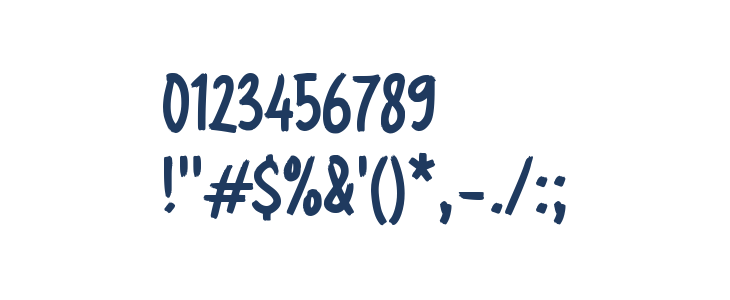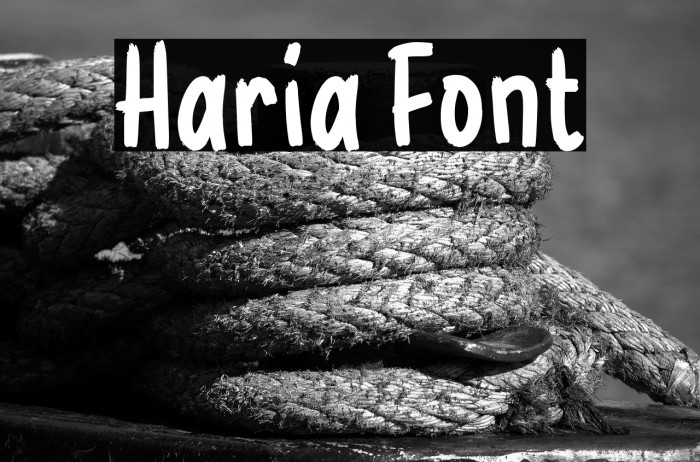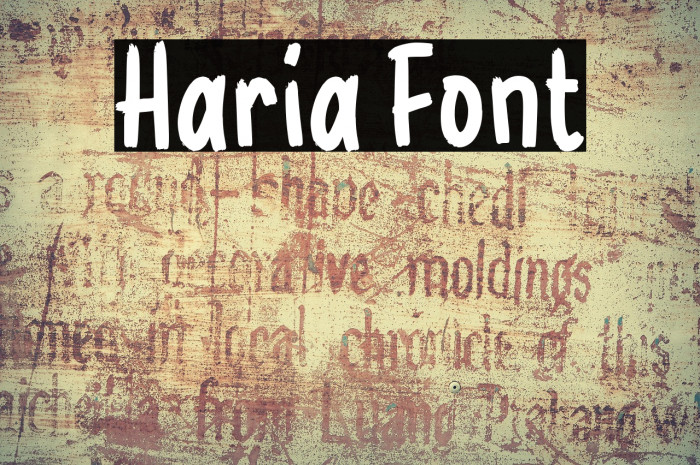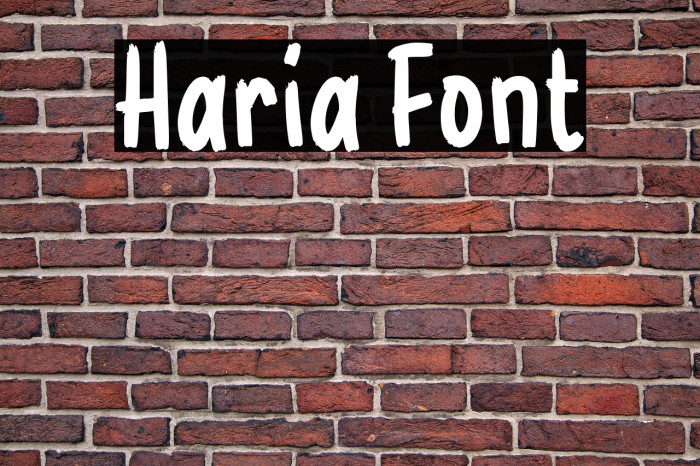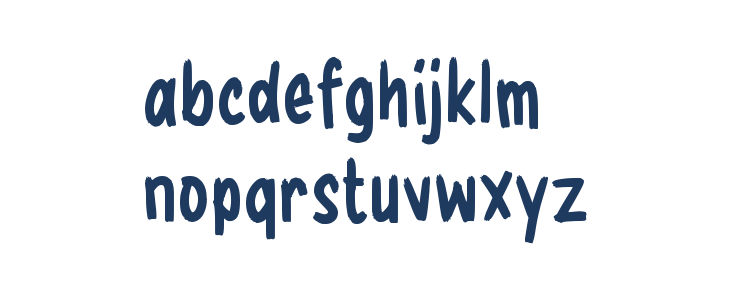
Haria Font
Haria Description
This font exudes a playful and energetic vibe, characterized by its bold and slightly irregular strokes that mimic a hand-drawn style. The uppercase and lowercase letters maintain a consistent height, contributing to a cohesive appearance. The numerals and special characters follow the same lively aesthetic, making them stand out with their unique flair. The overall design is informal yet structured, offering a sense of spontaneity while remaining legible. Its dynamic nature makes it suitable for projects that require a touch of personality and creativity.
| Proposed Projects | Ideal for children's books, creative posters, casual branding, and social media graphics. |